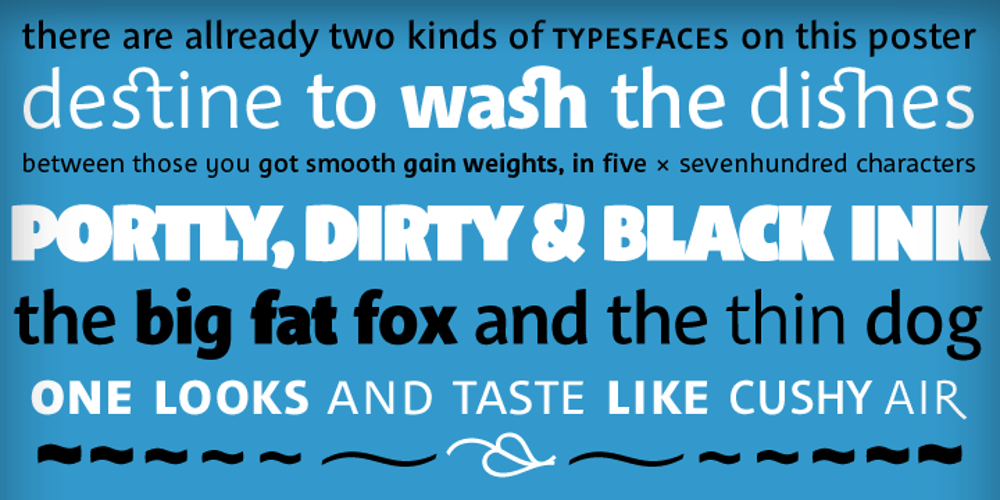
Ceebo
Ceebo font
Ceebo Font Family was designed by Oliver Matelowski and published by Oliver Matelowski. Ceebo contains 6 styles and family package options. Ceebo is a friendly sans-serif, which show some aspects of a humanist and grotesque typeface. It retained more details of writing and got some forms and characteristics of an italic. The font contains some alternative glyphs. It also contains some ligatures and discretionary ligatures. In addition, there are adjusted figures and additional character for uppercase letters, lowercase letters and small caps, which react by OpenType-Feature. The font was designed to stay legible also in small sizes: beside as possible open counters, a tall x-high, distinct vents and cuts, it especially are the details of the glyphs which make it discernable. The regular weight is slightly thinner than other sans-serif fonts, moreover the diacritics and small glyphs were designed for small sizes by taller and more open forms. The resulting “ruggedness” is mellowed by half-rounded stems and pointed stem ends.